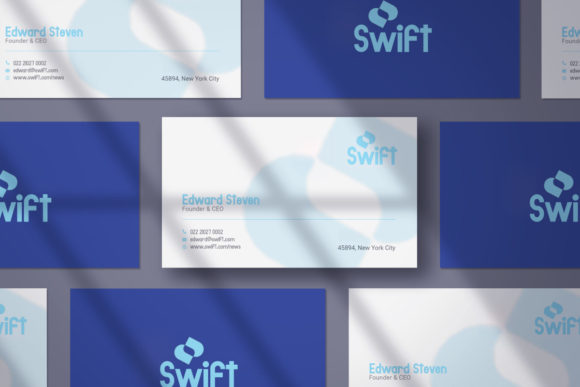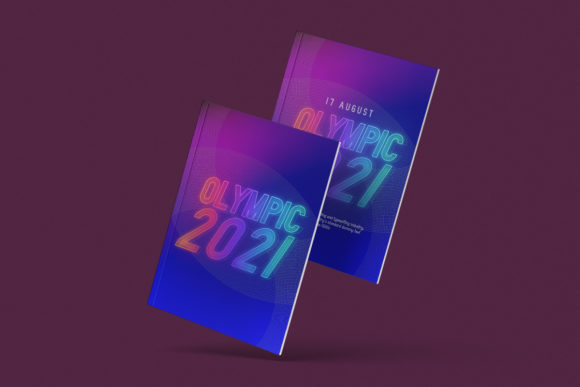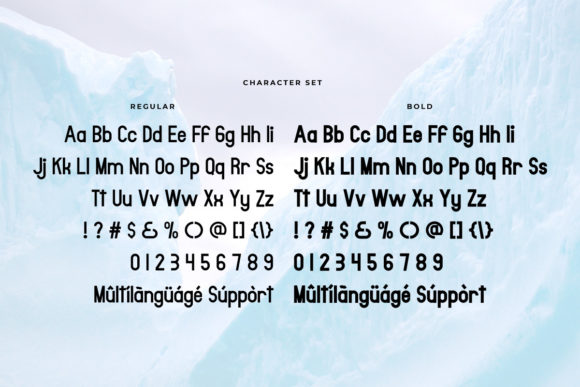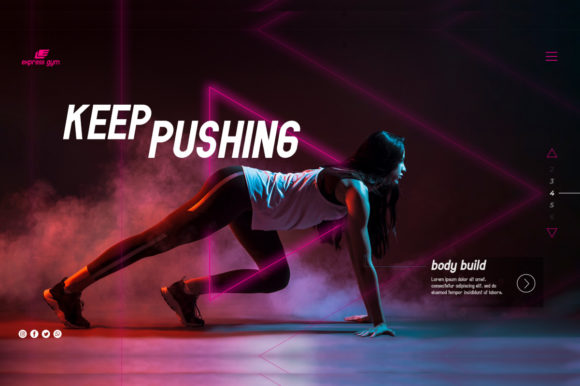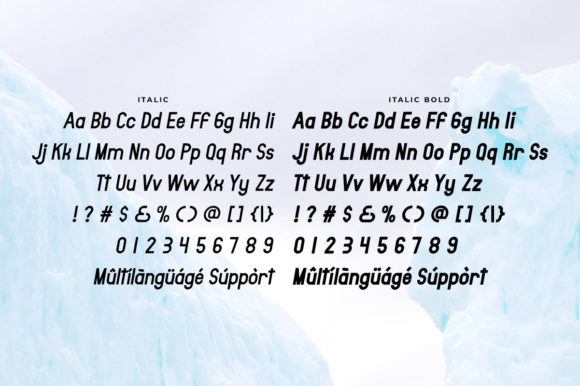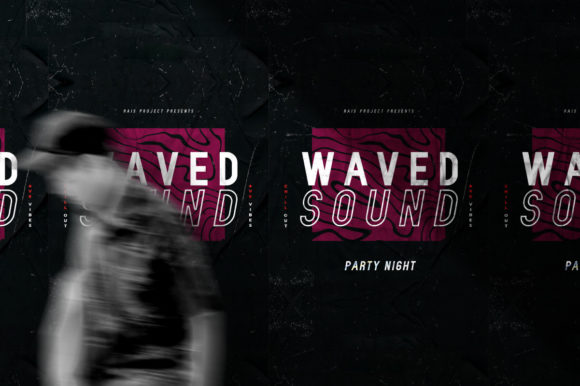
Unleashing the Power of a Modern Sans Serif: Antarctica Font
Have you ever found yourself stuck in a creative rut, staring at a blank page, waiting for inspiration to strike? You’re not alone. Sometimes, all it takes is a spark of fresh design to get those creative juices flowing. For designers, a new font can be just the catalyst needed to breathe life into a project.
Enter Antarctica Font, a modern sans serif font that’s perfect for sport, technology, games, magazines, music, and more. This versatile font is designed to give your projects a unique, minimal style that’s sure to grab attention. Whether you’re working on branding, advertising, or signage, Antarctica Font is the perfect tool to help you create stunning designs that stand out from the crowd.
Antarctica Font Key Features
- Font Size: The font has a total of 12 styles, ranging from Extra Light to Extra Bold, each with a corresponding font size.
- Unique Characteristics: The font features a unique, modern design with a range of letterforms and flourishes that evoke the spirit of adventure and exploration.
- Kerning and Ligatures: The font includes advanced kerning and ligature tables, ensuring that text sets are rendered with precision and flair.
Designer Review: Antarctica Font
As a designer, I was excited to dive into the Antarctica Font and see what it had to offer. Here’s my honest review.
- Unique aesthetic: The Antarctica Font has a distinct and refreshing look that sets it apart from other fonts. Its clean lines and minimalist style make it perfect for modern designs.
- High legibility: The font is incredibly easy to read, even at small sizes, making it ideal for body text and headings.
- Wide language support: The font supports a wide range of languages, making it a great choice for international designs.
- Limited italics and bold options: While the font looks great in its regular weight, the italics and bold options feel a bit lacking, which can limit its versatility.
Overall, I’m impressed with the Antarctica Font’s unique aesthetic and high legibility. However, its limitations in italics and bold options, as well as its lack of web font support, prevent it from being a top choice for all design projects. Still, it’s a great option for modern designs where a clean and simple look is desired.
Tips for Getting the Most Out of Antarctica Font
For the best results, use the Antarctica Font in conjunction with a bold and contrasting background color. This will help the font stand out and add visual interest to your design.
The Antarctica Font is ideal for use in:
- Adventure and travel-related designs.
- Science and educational materials.
- Winter and holiday-themed designs.